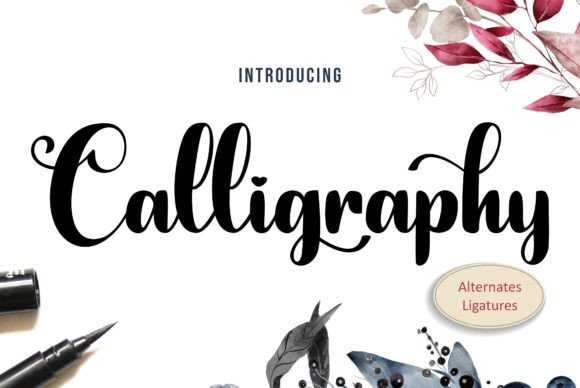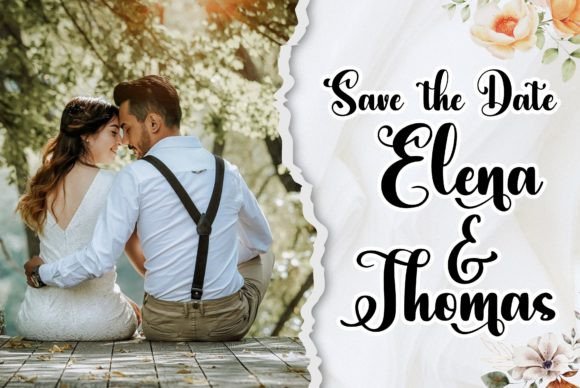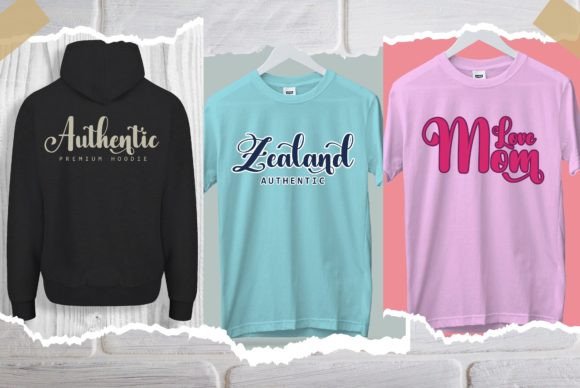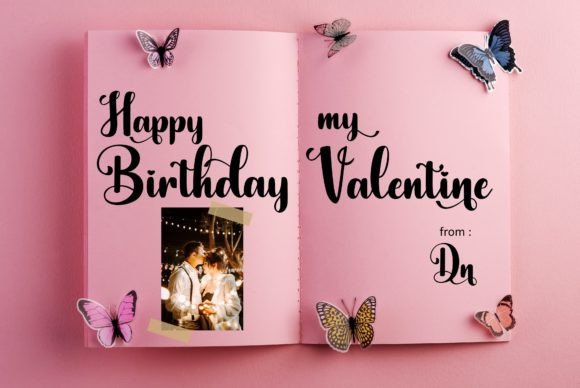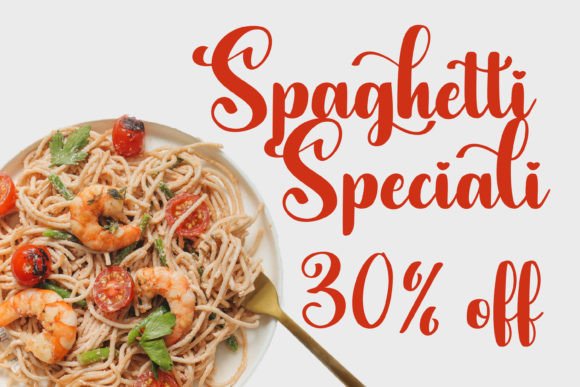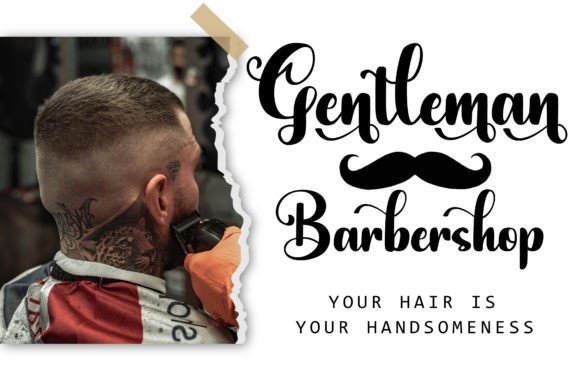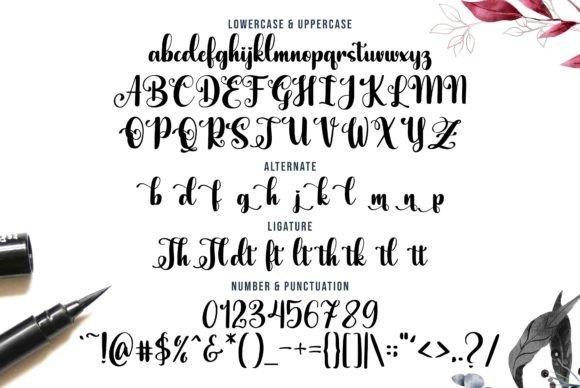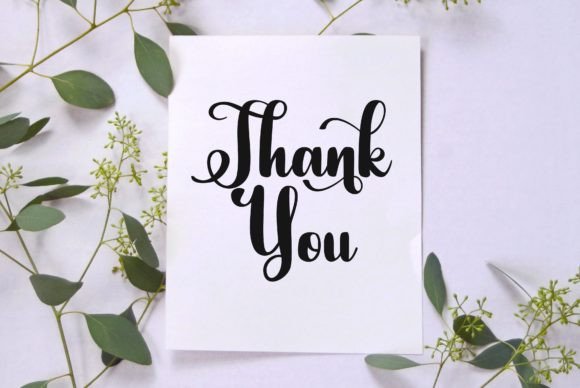
Calligraphy Font
About Calligraphy Font
“Calligraphy” is a modern fancy script font that exudes elegance and sophistication. Its graceful, flowing curves and intricate details make it a perfect choice for various design projects, including brands, logos, flyers, and wedding invitations. The font’s beautiful aesthetics add an authentic and gorgeous touch to your projects, enhancing their visual appeal and making them truly stand out.
The modern and fancy script style of “Calligraphy” adds a touch of luxury and refinement to your designs. Whether you’re creating a high-end brand logo, elegant wedding invitations, or eye-catching flyers, this font elevates the overall aesthetics of your projects, giving them a sense of class and authenticity.
One of the notable features of “Calligraphy” is its versatility. Its ornate and decorative design allows it to adapt to different contexts, making it suitable for both formal and creative applications. The font’s ability to convey a sense of sophistication and beauty makes it a valuable asset for designers working on projects that require an element of luxury and style.
By incorporating “Calligraphy” into your designs, you’re infusing them with a touch of elegance and charm. Its modern fancy script style enhances the visual appeal of your projects, making them look authentic and gorgeous. Whether you’re a graphic designer, a wedding planner, or an individual working on personal projects, “Calligraphy” provides you with a stunning font choice to create designs that leave a lasting impression and exude sophistication.